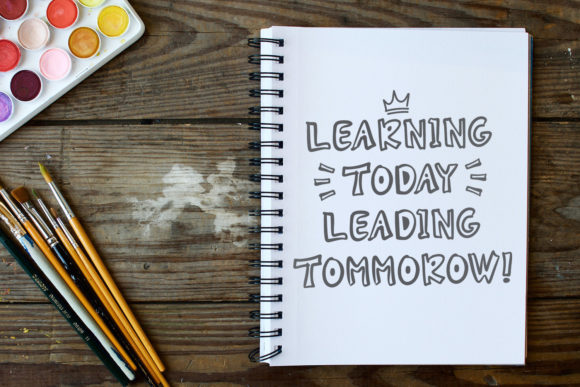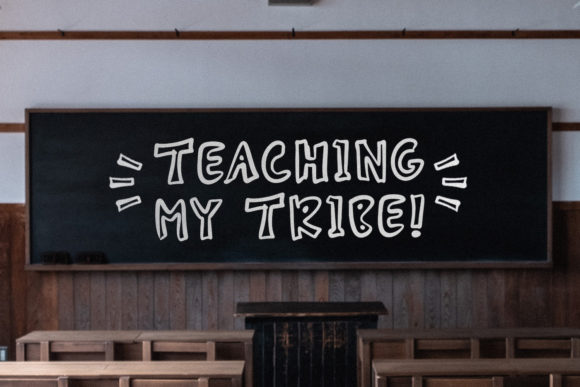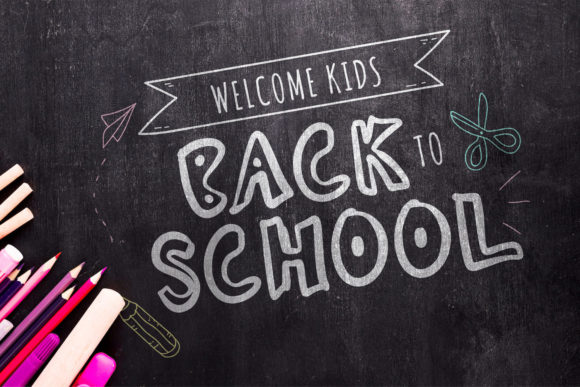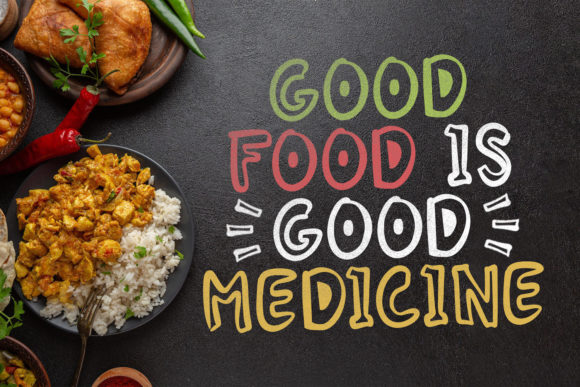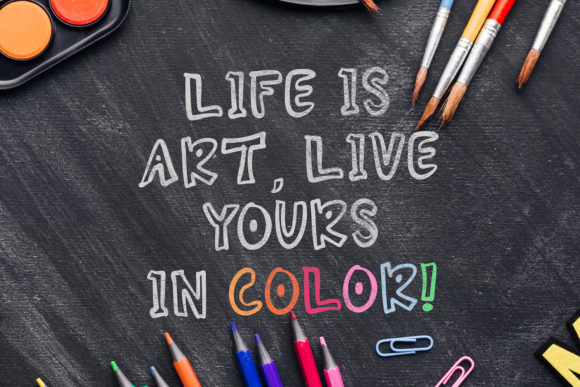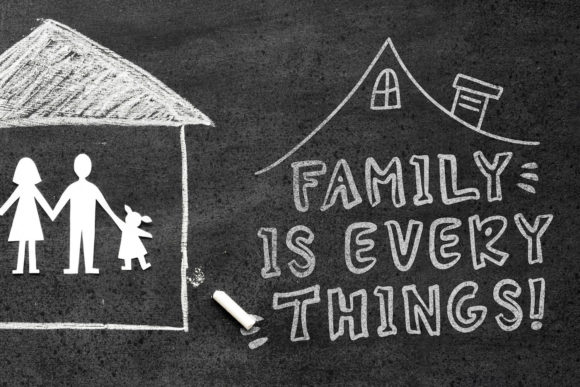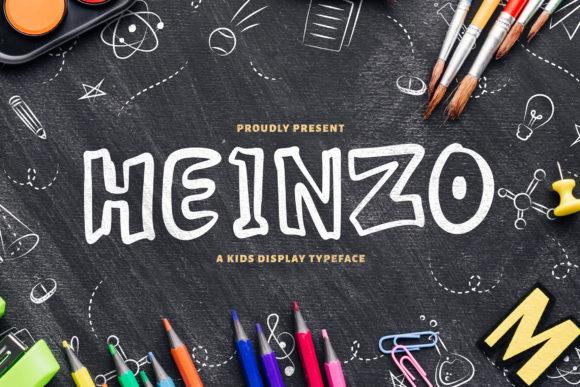
Introducing Heinzo Font: The Playful and Fresh Choice for Your Creative Projects
Are you looking for a fun and creative font to add a personal touch to your children’s designs or school projects? Look no further than Heinzo Font! This playful and fresh display font is perfect for bringing your ideas to life. In this article, we’ll explore the features and benefits of Heinzo Font, and show you how to make the most of this exciting new font.
What is Heinzo Font?
Heinzo Font is a fun and vibrant display font designed to add a touch of playfulness to your designs. With its bold and curly lines, this font is sure to grab attention and make your projects stand out. Whether you’re working on a children’s book, a school project, or a craft design, Heinzo Font is the perfect choice.
Key Features of Heinzo Font
• Playful and Fresh Design: Heinzo Font features a unique and playful design that’s perfect for kids’ designs and school projects.
• Easy to Read: Despite its curly lines, Heinzo Font is easy to read, making it perfect for headlines, titles, and short paragraphs.
• Versatile: Heinzo Font can be used for a wide range of projects, from crafts and designs to school projects and children’s books.
• Fun and Creative: With Heinzo Font, you can add a personal touch to your projects and make them truly unique.
4. Experiment and Have Fun: Experiment with different font sizes, colors, and styles to find the perfect look for your project.
Benefits of Using Heinzo Font
So why choose Heinzo Font for your designs? Here are just a few benefits:
• Adds a Personal Touch: Heinzo Font adds a personal touch to your designs, making them truly unique and eye-catching.
• Perfect for Kids’ Designs: The playful and fresh design of Heinzo Font makes it perfect for kids’ designs, such as children’s books, crafts, and school projects.
• Easy to Use: Heinzo Font is easy to use and can be incorporated into your designs in just a few simple steps.
• Versatile: Heinzo Font can be used for a wide range of projects, from crafts and designs to school projects and children’s books.
Tips and Tricks for Getting the Most Out of Heinzo Font
Here are a few tips and tricks for getting the most out of Heinzo Font:
• Experiment with Different Font Sizes: Try out different font sizes to find the perfect balance for your design.
• Pair with Other Fonts: Pair Heinzo Font with other fonts to create a unique and eye-catching design.
• Use in Combination with Images: Use Heinzo Font in combination with images to add an extra layer of depth and interest to your design.
• Have Fun and Be Creative: Most importantly, have fun and be creative with Heinzo Font!
In conclusion, Heinzo Font is a fun and playful display font that’s perfect for adding a personal touch to your children’s designs or school projects. With its bold and curly lines, easy-to-read design, and versatility, Heinzo Font is the perfect choice for designers and crafters of all levels. So why not give Heinzo Font a try and see how it can bring your ideas to life?